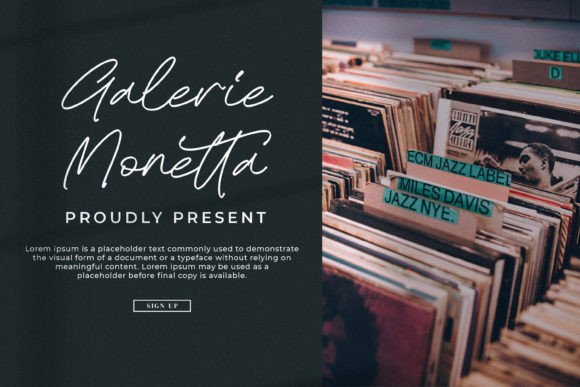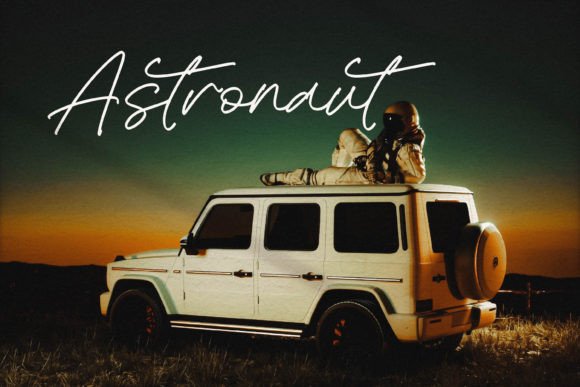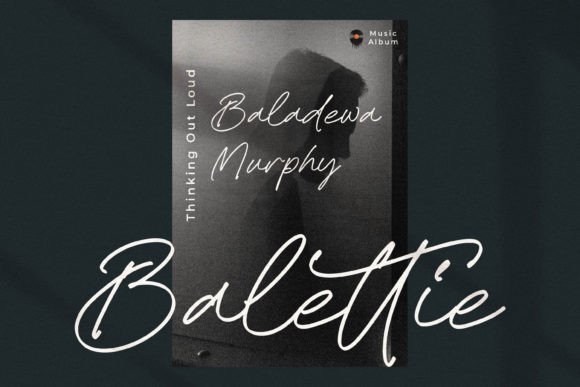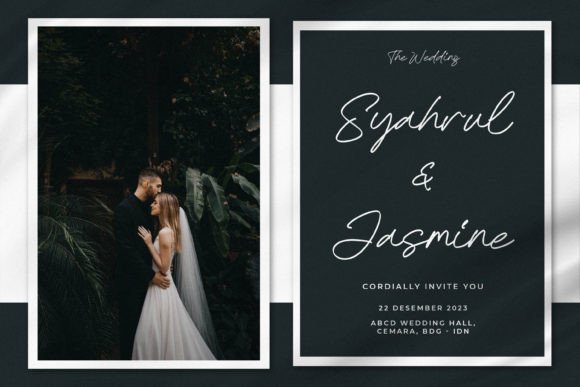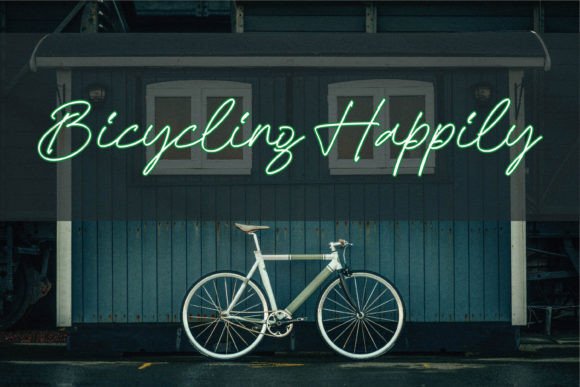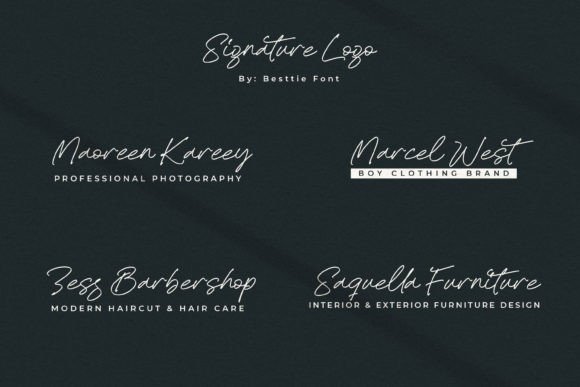
Introducing Besttie Font: Elevate Your Designs with Elegance and Sophistication
In the world of design, typography plays a crucial role in conveying the tone and aesthetic of a project. Whether you’re a professional designer or a crafty DIY enthusiast, finding the right font can make all the difference. If you’re on the hunt for a beautiful, modern, and versatile handwritten font, look no further than Besttie Font. This stunning font is perfect for a wide range of projects, from logos and branding to homeware designs, product packaging, and beyond.
What Makes Besttie Font So Special?
Besttie Font is a modern handwritten font that exudes elegance and sophistication. Its beautiful, flowing script is perfect for adding a touch of luxury to any project. With its clean lines, subtle curves, and balanced letterforms, Besttie Font is sure to impress. Whether you’re designing a logo, creating a poster, or crafting a label, this font is sure to elevate your design to the next level.
Endless Possibilities with Besttie Font
One of the best things about Besttie Font is its versatility. This font is perfect for a wide range of projects, including:
• Logos and branding projects: Create a lasting impression with a custom logo that showcases your brand’s personality and style.
• Homeware designs: Add a touch of elegance to your home decor with custom designs that feature Besttie Font.
• Product packaging: Stand out on store shelves with eye-catching packaging that features this beautiful font.
• Mugs, quotes, posters, shopping bags, T-shirts, book covers, business cards, invitation cards, greeting cards, labels, and more: The possibilities are endless with Besttie Font!
Why Choose Besttie Font?
With so many fonts on the market, why choose Besttie Font? Here are just a few reasons why designers and crafters love this font:
• Unique and stylish: Besttie Font is a one-of-a-kind font that will set your designs apart from the crowd.
• High-quality: This font is designed with precision and attention to detail, ensuring that it looks great in any design.
• Versatile: Besttie Font is perfect for a wide range of projects, from logos and branding to homeware designs and product packaging.
Tips for Using Besttie Font
To get the most out of Besttie Font, here are a few tips to keep in mind:
• Experiment with different sizes and colors to find the perfect look for your design.
• Pair Besttie Font with other fonts to create a unique and visually interesting design.
• Don’t be afraid to get creative and try new things – Besttie Font is a versatile font that can be used in many different ways.
If you’re looking for a beautiful, modern, and versatile handwritten font, Besttie Font is the perfect choice. With its elegant script, PUA encoding, and endless possibilities, this font is sure to elevate your designs to the next level. Whether you’re a professional designer or a crafty DIY enthusiast, Besttie Font is a must-have font for any project that requires a premium taste.